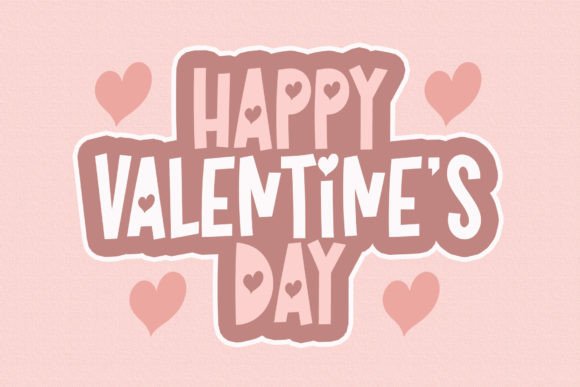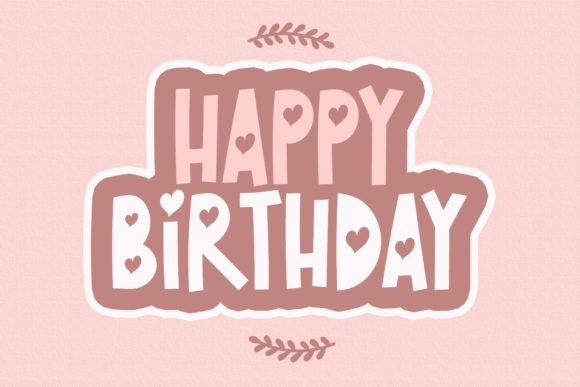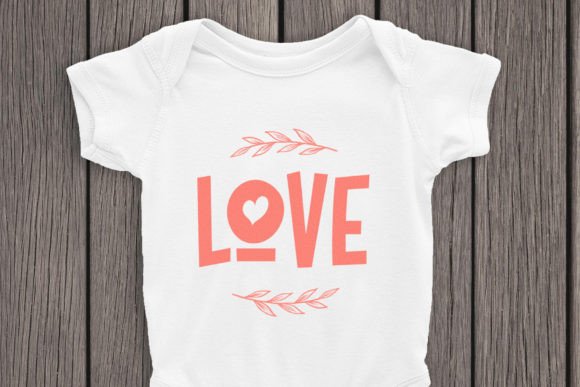
Introduction to For You Darling Font
For You Darling is a cute and lovely display font decorated with sweet little heart elements.
Its quirky and playful feel is perfect for Valentine’s Day crafts, adorable gifts, greeting cards, and more .